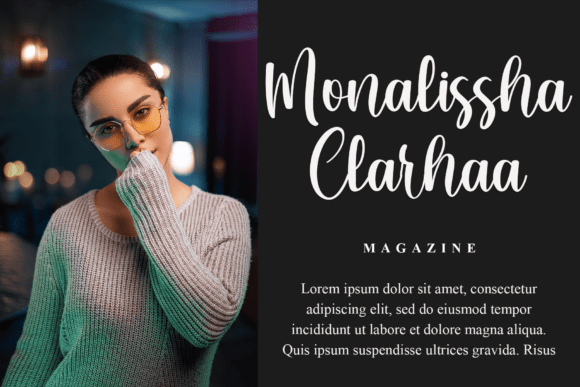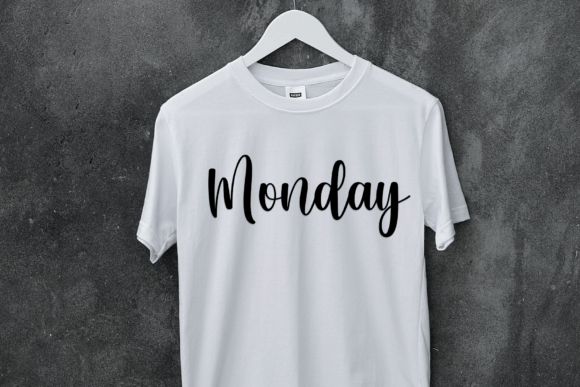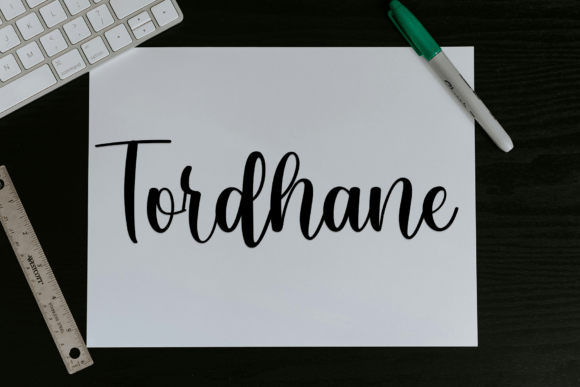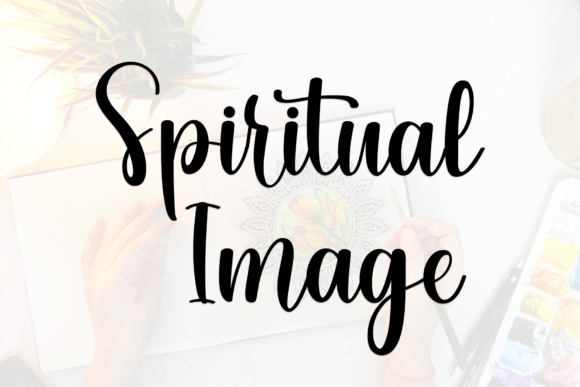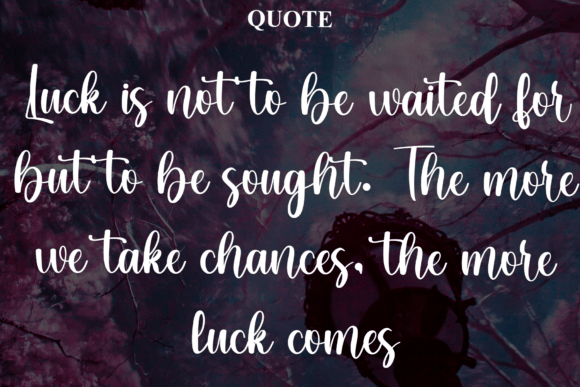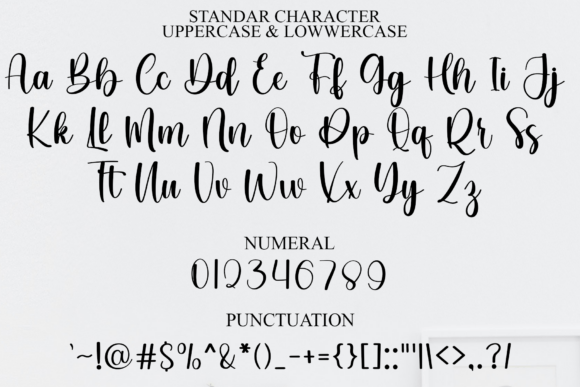
Unlock the Magic of the Holiday Season with the Berry Smoothie Font
It’s that time of the year again – the lights are twinkling, the fireplace is crackling, and the scent of freshly baked cookies wafts through the air. As designers, we’re always on the lookout for the perfect font to capture the essence of the holiday season. And that’s where the Berry Smoothie Font comes in – a festive and merry typeface that adds a touch of enchantment to your designs.
With its decorative elements and whimsical flair, the Berry Smoothie Font is perfect for greeting cards, gift tags, and holiday-themed projects. Whether you’re a seasoned designer or a newcomer to the world of typography, this font brings a cheerful and nostalgic ambiance to your words. By incorporating the Berry Smoothie Font into your designs, you’ll add a touch of magic that’s sure to delight your audience.
Berry Smoothie Font Key Features
- Font Family: Berry Smoothie is a custom font family designed for digital use.
- Character Set: Supports a wide range of languages, including Latin, Cyrillic, and Greek alphabets, with over 1000 glyphs.
- Unique Characteristics: Features a smooth, rounded design with a subtle gradient effect, giving it a modern and refreshing look.
Berry Smoothie Font Review
I recently had the chance to work with the “Berry Smoothie Font” and I’m excited to share my thoughts on this unique font.
- Unique and playful style that adds a touch of whimsy to any design project.
- Great for branding and marketing materials where you want to convey a sense of fun and approachability.
- Includes a wide range of characters, including punctuation and special symbols.
- Works well in both digital and print formats.
- May not be the best choice for formal or professional projects where a more traditional font is desired.
- Some characters may be slightly irregular or inconsistent in terms of spacing and alignment.
- Not as versatile as some other fonts, which may limit its use in certain design contexts.
Overall, I think the “Berry Smoothie Font” is a fun and creative option that can add a lot of personality to your designs. While it may not be the best choice for every project, it’s definitely worth considering for anything that needs a playful touch.
The Berry Smoothie font is ideal for creating playful, youthful designs, such as:
– Brand logos
– Menu boards
– Event invitations
– Marketing materials
For the best results, use the Berry Smoothie font in conjunction with bright, bold colors and playful graphics. Experiment with different font sizes, styles, and effects to create a unique look.
Alex Brush Font is a elegant and refined script font that’s perfect for creating a high-end and sophisticated look. It’s ideal for use in luxury branding, packaging, and advertising.
Alex Brush Font is a more elegant and refined alternative to Berry Smoothie Font. While Berry Smoothie has a fun and playful feel, Alex Brush has a more sophisticated and luxurious look.
Yes, Berry Smoothie Font comes in four weights: Light, Regular, Medium, and Bold. Each weight provides a distinct look and feel, allowing designers to choose the perfect weight for their specific design needs.
Q: What is the recommended line height for Berry Smoothie Font?
The recommended line height for Berry Smoothie Font is 1.2 to 1.5 times the font size. This ensures proper legibility and balance in the design. However, line height may need to be adjusted depending on the specific design requirements and the surrounding text elements.